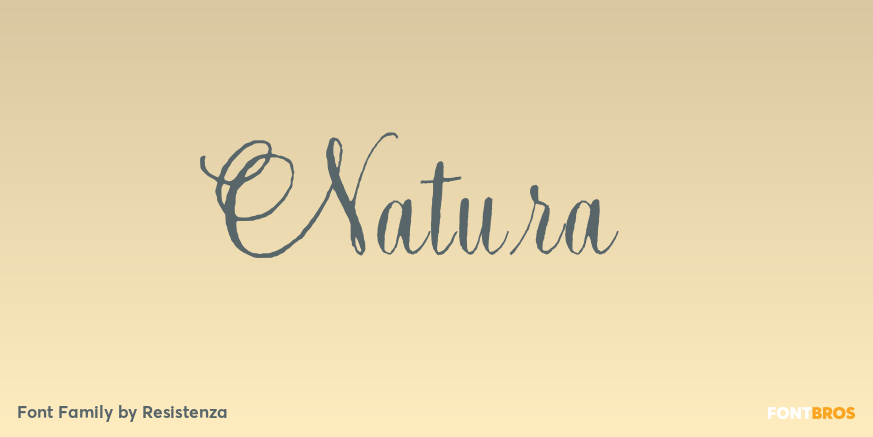
Natura
About Natura
Inspired by old nature field notebooks, Natura was born out of the passion for new modern hand-calligraphy, designed first with a flexible fountain pen and then digitalized glyph by glyph to get the natural feeling of the dry ink on smooth paper.